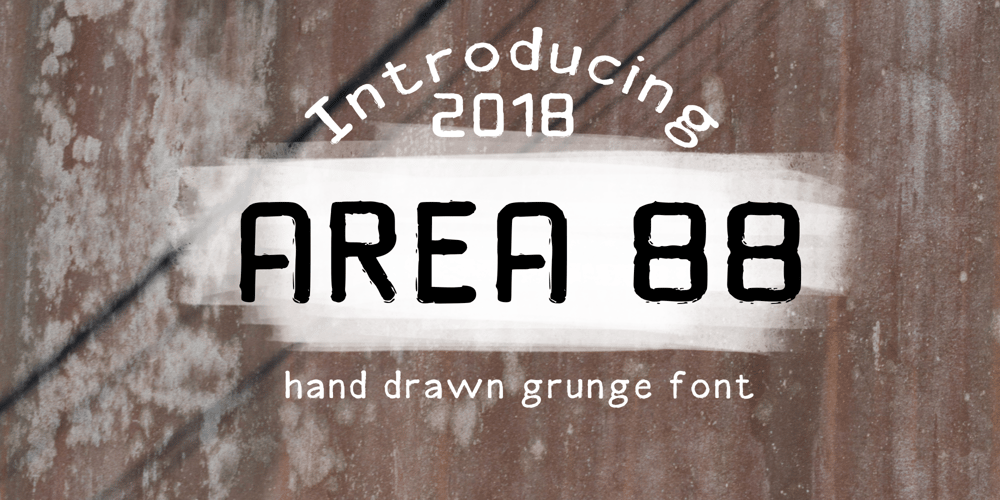
Area 88 Font Family was designed by Luiza Gasparyan and published by Umbra95. Area 88 contains 1 styles and family package options. AREA 88 is an experimental grunge style font with a unique look. The font is easily recognized with a messy, dirty texture . AREA 88 has all the features usually included in a fully professional font.